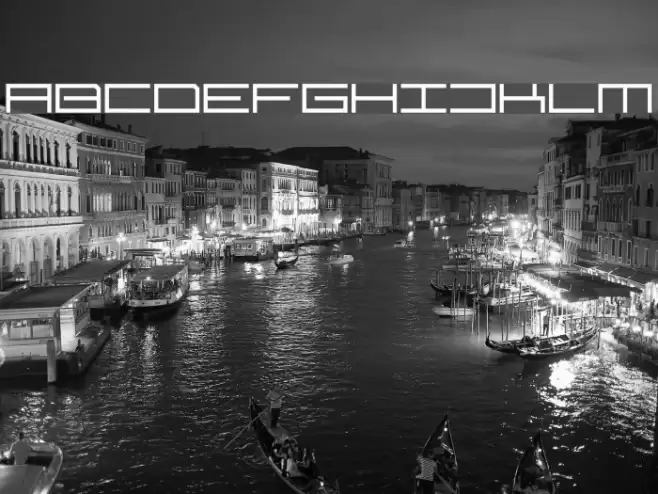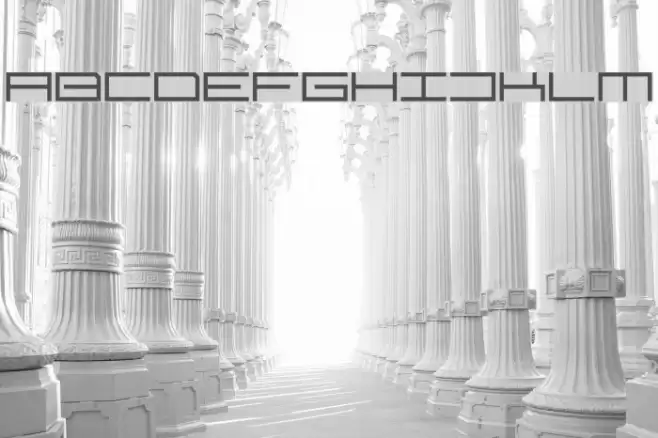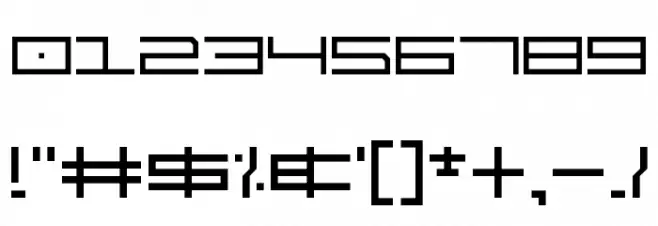
Techno 'Til Dawn Font
Techno 'Til Dawn Description
This font features a futuristic and geometric design, characterized by its sharp angles and clean lines. The uppercase and lowercase letters maintain a consistent height, giving it a uniform appearance. The characters are constructed with a grid-like structure, emphasizing a digital and modern aesthetic. The numerals and special characters follow the same design principles, ensuring a cohesive look across all glyphs. This font's style is reminiscent of digital displays and technology-inspired themes, making it suitable for projects that require a contemporary and tech-savvy feel.
A futuristic, geometric font with a digital, tech-inspired design from Uncategorized fonts.
- Proposed Projects: Ideal for technology branding, digital interfaces, video game titles, and sci-fi themed projects.